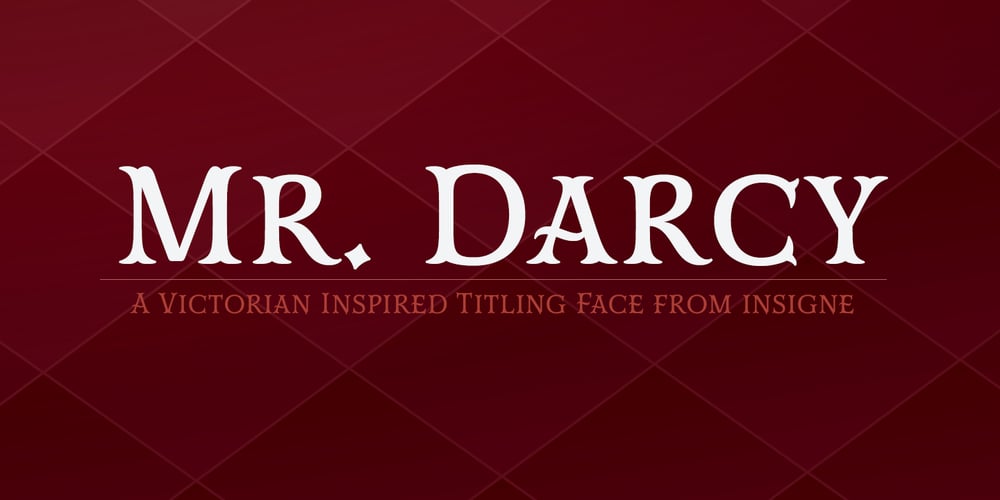
Mr Darcy Font Family was designed by published by insigne. Mr Darcy contains 5 styles and family package options. Only occasionally are we graced with a font so pleasant and enjoyable to our company as the wonderfully amiable Mr. Darcy. The attractive elegance of the contemporary has been conveyed into Victorian times. Feel the call of modernity and friendliness with this antique Victorian-esque typeface. Itís gentlemanly elegance and grace commands the artboard. The elegant Mr. Darcy is sufficiently compete with its additional characters–to be stated precisely, more than 136 defining alternates. These optional features are carefully displayed within the supplied brochure. The employ of the Mr. Darcy family moreover demands the proper implements, such as an program that supports Opentype features such as, Adobe Illustrator, Adobe InDesign, Adobe PhotoShop, CorelDRAW, or Quark. Be sure to check with the Userís Guideline for all the OpenType options and employ them with wit and vigor. OpenType options are there to help you develop your own custom vision. Five different weights offer plenty of design options and offers the versatility of character as possessed only by a refined gentleman…or a refined typeface.